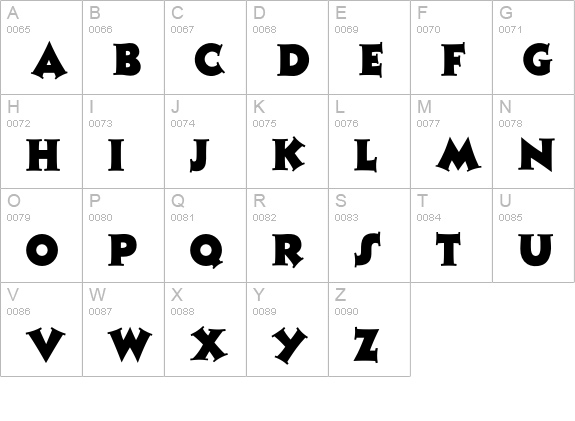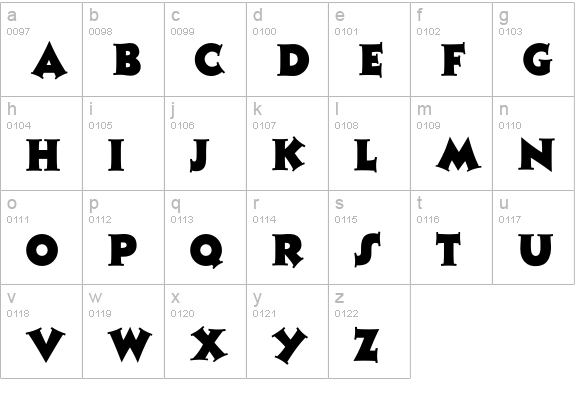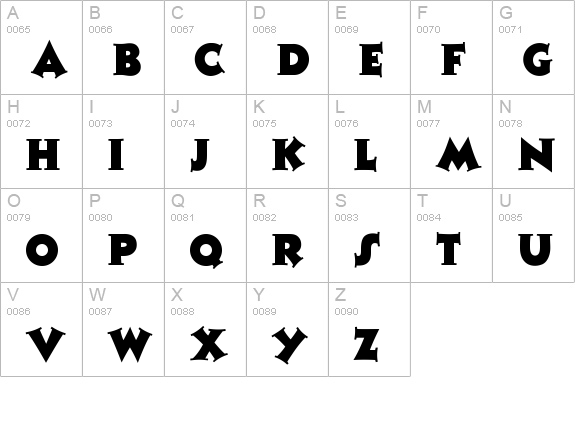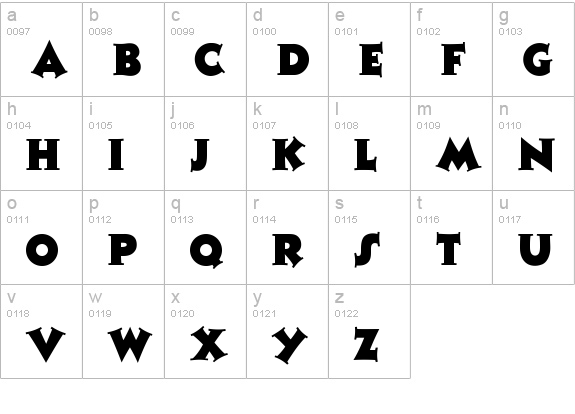
Checkpoint Font Details
Checkpoint font is a modern and stylish typeface that is sure to make your designs stand out. With its clean lines and sharp edges, this font exudes a sense of professionalism and sophistication. Whether you are working on a project for print or digital media, Checkpoint font is the perfect choice to add a touch of elegance to your work. Best of all, Checkpoint font is completely free to download at FontsMarket.com. You can access this versatile font without any cost, making it a valuable addition to your font collection. Don't miss out on the opportunity to enhance your designs with Checkpoint font - download it today and take your projects to the next level.